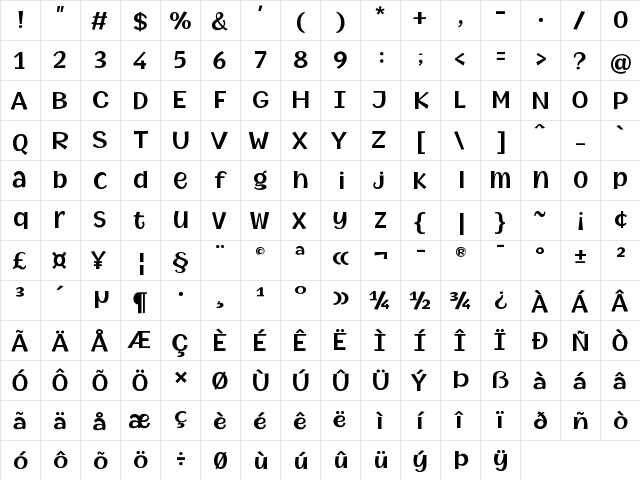
Mythical Garden SemiBold Font Preview
Mythical Garden SemiBold
Mythical Garden SemiBold Font Details
| Style | SemiBold |
| Foundry | Darwin Huayan Harahap |
| Designer | Darwinoo |
Design Context for Mythical Garden Typeface
Mythical Garden takes a measured approach to typography — its balanced proportions and neutral character make it a reliable workhorse for both digital and print work. The heavy weight commands attention and anchors typographic hierarchies.